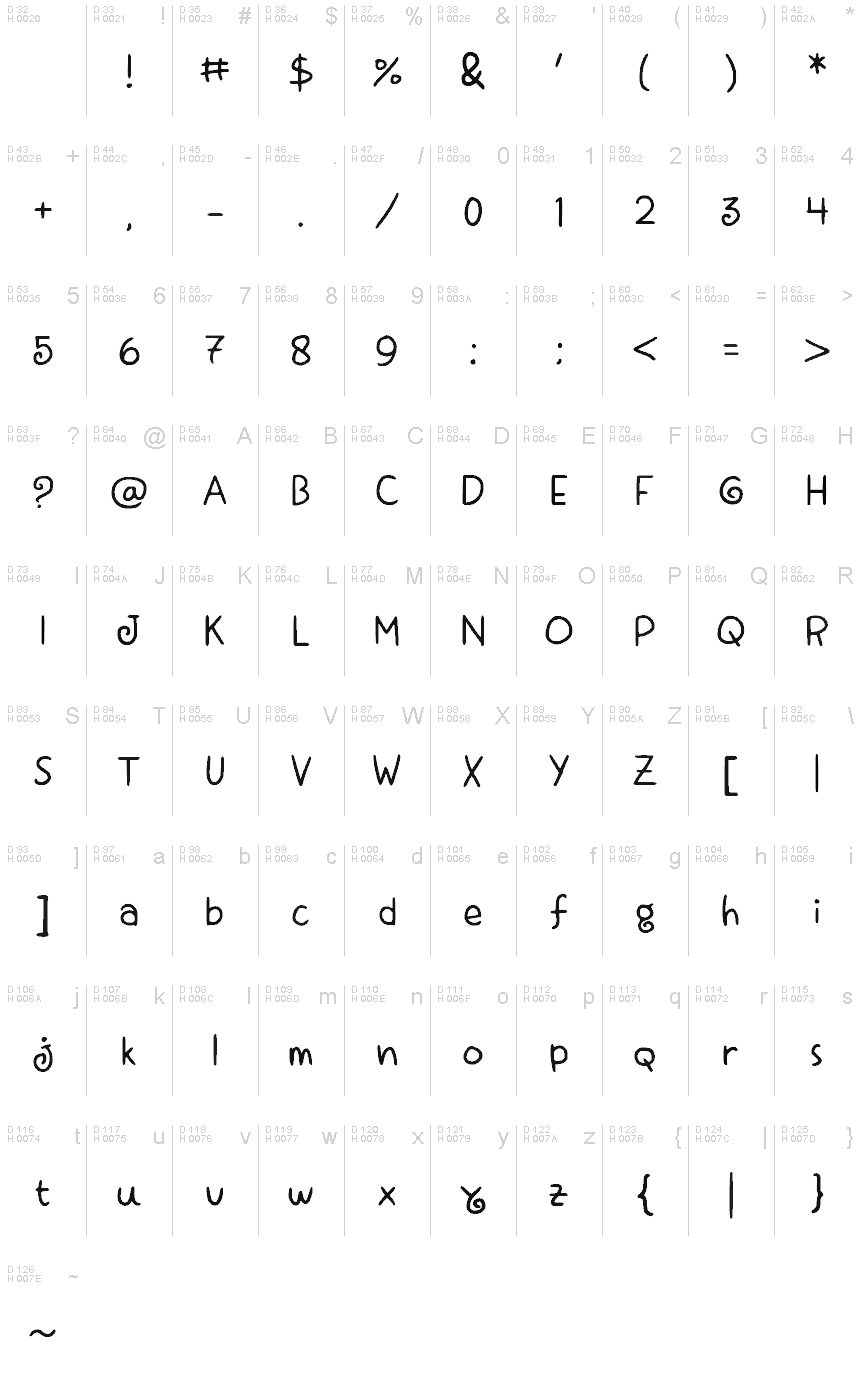
Macopah
Macopah, a handwritten font crafted by Mas Ova, exudes a captivating blend of effortless elegance and raw, organic expression. This distinctive typeface boasts flowing, dynamic strokes that dance across the page, evoking a sense of movement and energy. The irregular, yet harmonious letterforms create a warm, personalized aesthetic, lending an inviting charm to any design.
Macopah's versatility shines through its ability to seamlessly transition between formal and informal contexts. Its natural, hand-drawn appearance makes it an ideal choice for branding, packaging, and editorial applications, where a touch of authenticity and personality is desired. Equally at home in the realm of stationery, signage, or even wedding invitations, this font has the power to elevate the visual impact of any project, infusing it with a touch of artisanal allure.